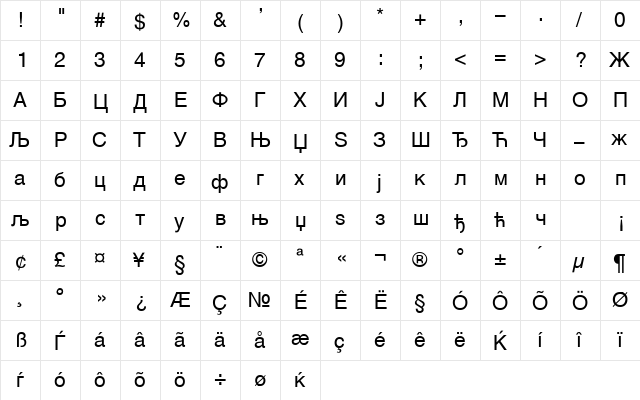
HelvCiril Regular
Design Context for HelvCiril Typeface
HelvCiril takes a measured approach to typography — its balanced proportions and neutral character make it a reliable workhorse for both digital and print work.